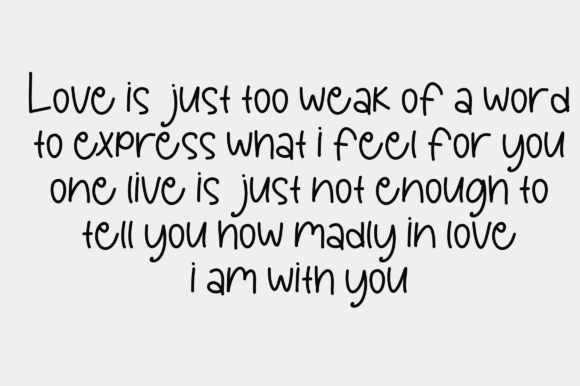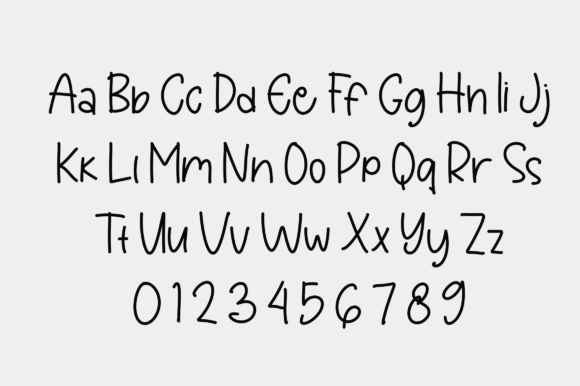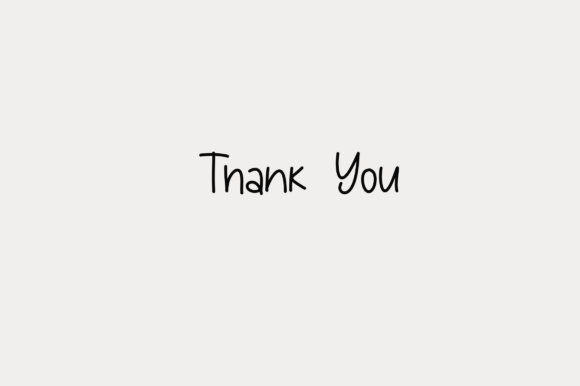
Getting Started with Handmade Notes Font
Have you ever sat down at your desk, pen in hand, and tried to jot down a quick reminder or idea only to realize that your handwriting is nowhere near legible? We’ve all been there. It’s those moments when we wish we had a font that captured the essence of handwritten notes – a font that feels personal, imperfect, and full of character. That’s exactly what the Handmade Notes Font delivers.
This beautiful handwritten font is designed to mimic the look and feel of quick, spontaneous handwriting. It’s perfect for designers looking for a unique design resource to add a touch of personality to their creative projects. Whether you’re working on a personal blog, a social media campaign, or a client project, the Handmade Notes Font is a valuable asset that will help you stand out from the crowd.
Key Features of Handmade Notes Font
- Unique, hand-drawn design perfect for creative projects, adding a personal touch to your work.
- Perfect for designers, writers, and artists looking for a distinctive and creative design resource.
- Includes a set of matching icons and graphics, adding an extra layer of depth and visual interest to your work.
Honest Review: Handmade Notes Font
I recently stumbled upon the Handmade Notes Font and was immediately drawn to its unique, hand-drawn feel. As a designer, I’m always on the lookout for high-quality design resources to enhance my creative projects, and this font definitely delivers.
- ✨ Unique, hand-drawn aesthetic that adds a personal touch to any design
- ✨ High-quality design that looks great on both light and dark backgrounds
However, I did encounter a few limitations when using the font:
- ⚠️ The font doesn’t come with a transparent background, which can make it difficult to use on complex design elements
- ⚠️ Some letters may require slight adjustments to achieve perfect alignment
Overall, I’m impressed with the Handmade Notes Font and would highly recommend it to designers looking for a unique, high-quality design resource. While it may have a few limitations, its unique aesthetic and free download make it a valuable addition to any design library.
Tips for Getting the Most Out of Handmade Notes Font
To get the most out of the Handmade Notes Font, try using it in combination with other design elements, such as textures and patterns, to create a unique and visually appealing design. You can also experiment with different font sizes, colors, and styles to create a custom look that suits your needs.
The Handmade Notes Font is a versatile design resource that can be used in a variety of creative projects, including invitations, posters, and social media graphics. It is particularly well-suited for use in designs that require a high level of customization and creativity.